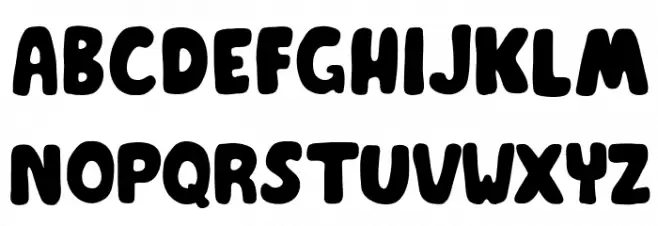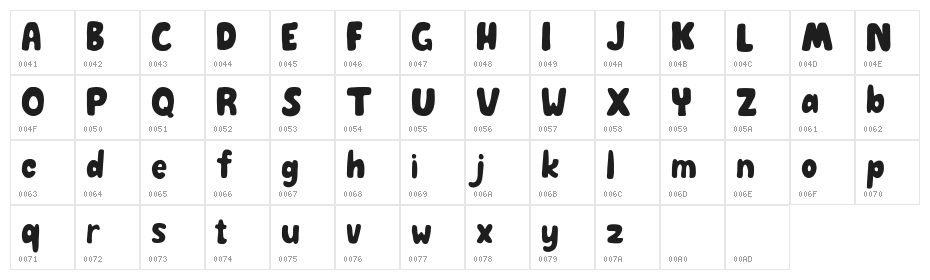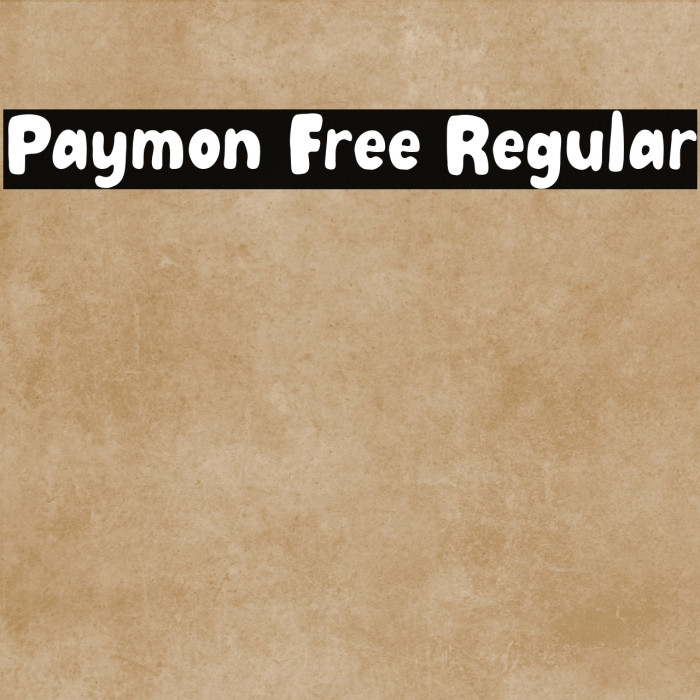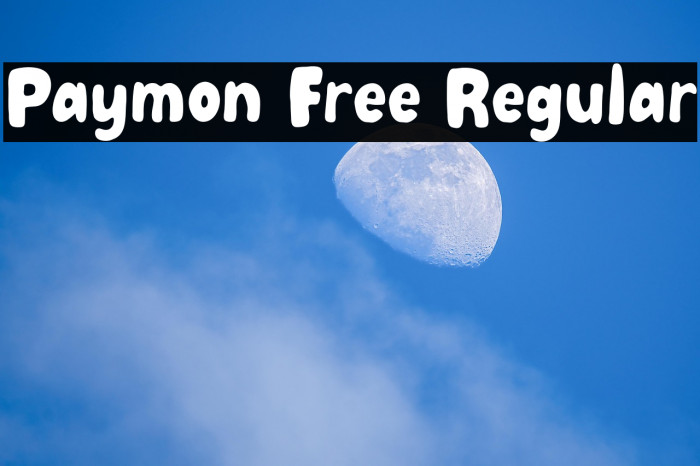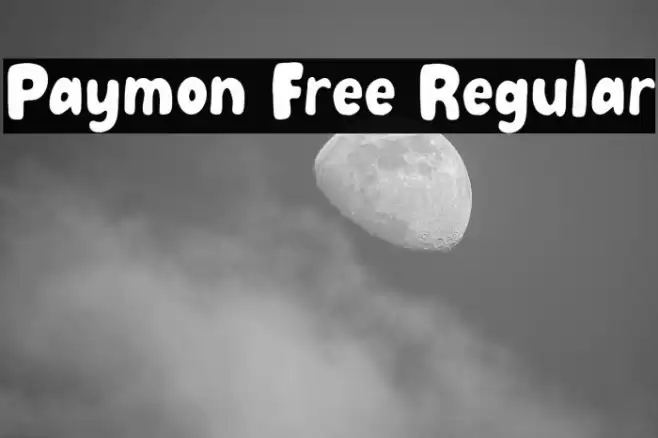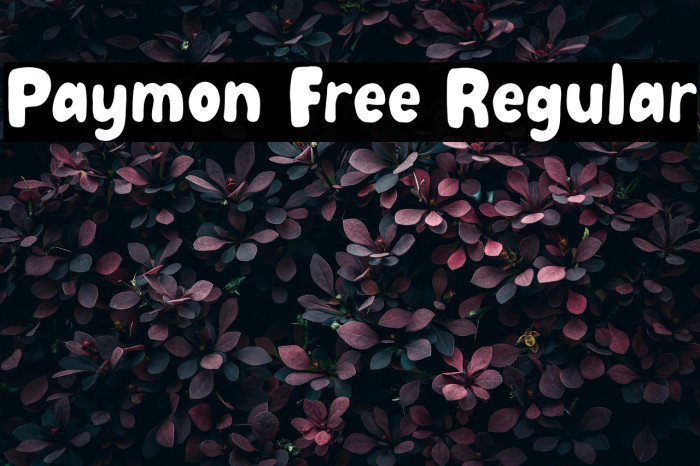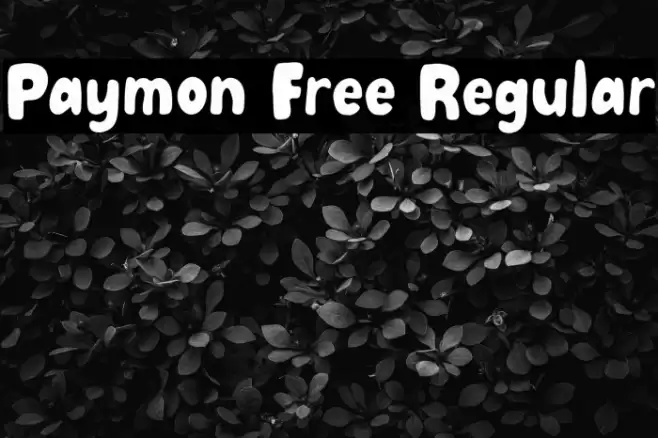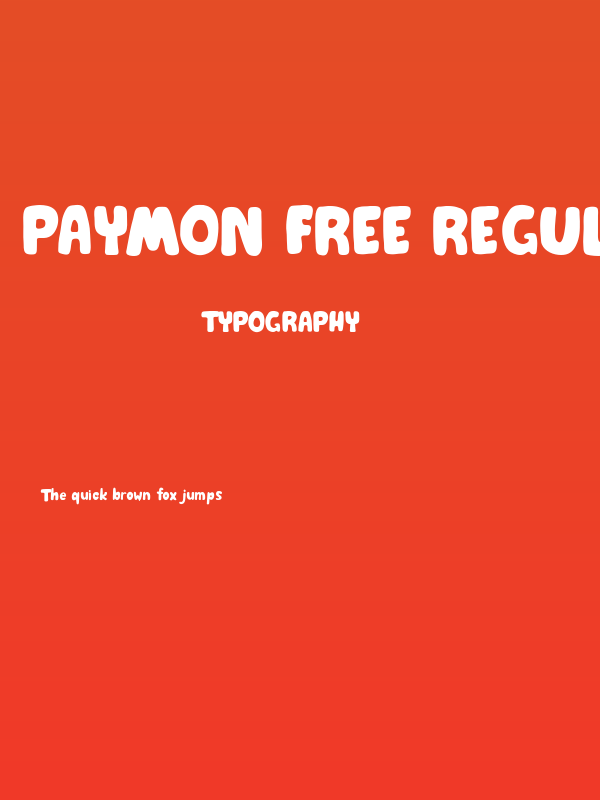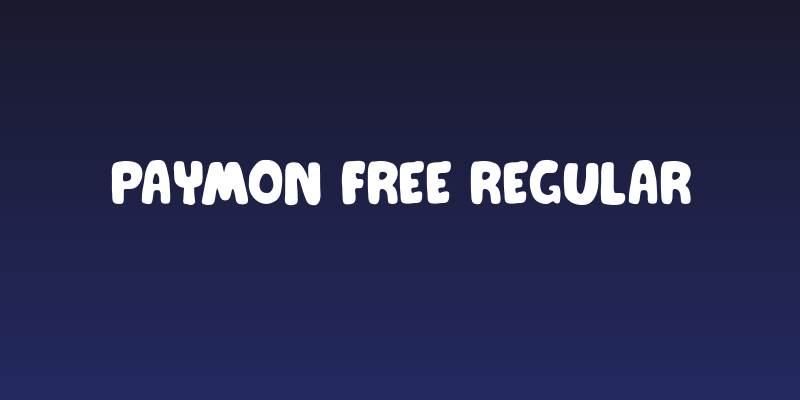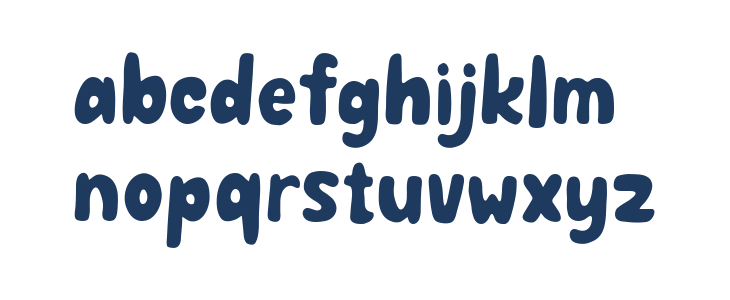
Paymon Free Regular Font
Paymon Free Regular Description
This playful and bold typeface features rounded, thick strokes that convey a sense of fun and approachability. The letters are uniformly wide, giving the font a consistent and cohesive appearance. The uppercase and lowercase characters maintain a similar weight, enhancing readability while retaining a whimsical charm. The font's design is reminiscent of hand-drawn lettering, making it ideal for projects that require a personal touch. Its boldness ensures that it stands out, making it suitable for eye-catching headlines and creative designs. The characters are evenly spaced, providing a balanced look across different text lengths. Overall, this font exudes a modern yet casual vibe, perfect for engaging and lively content.
| Proposed Projects | Ideal for children's books, playful branding, posters, and social media graphics. |